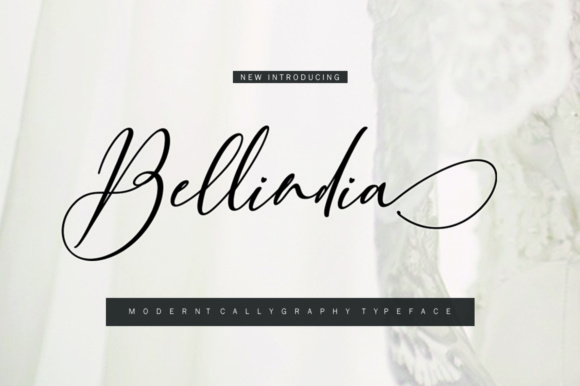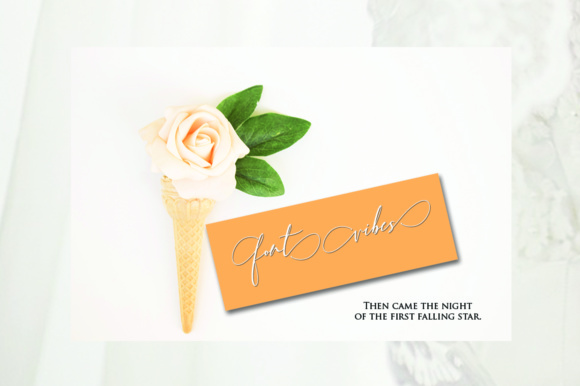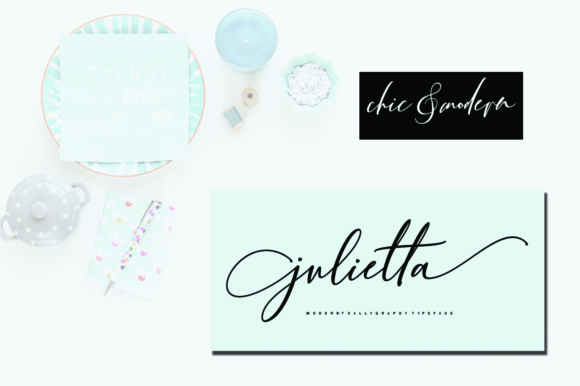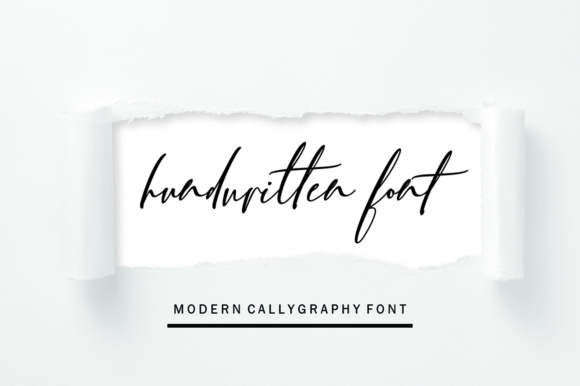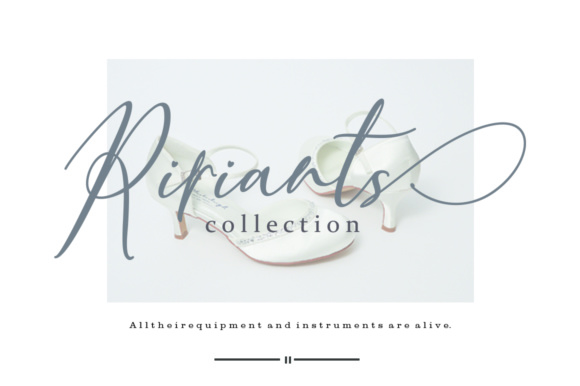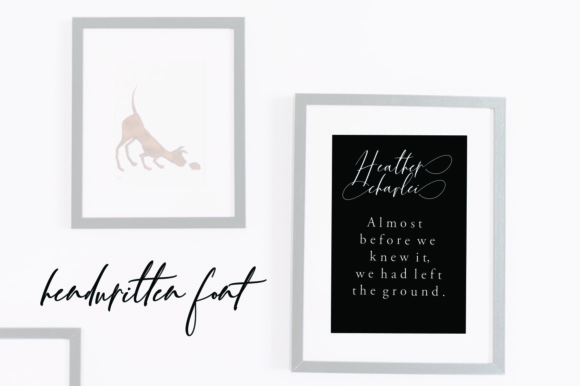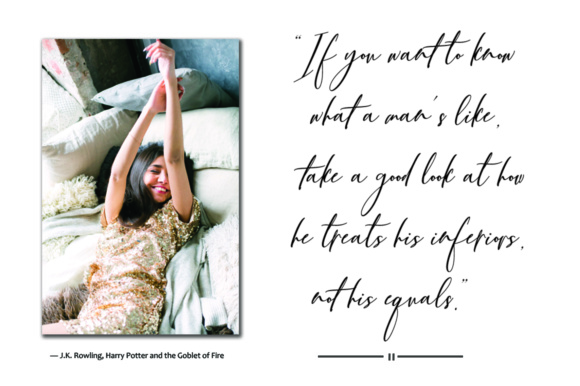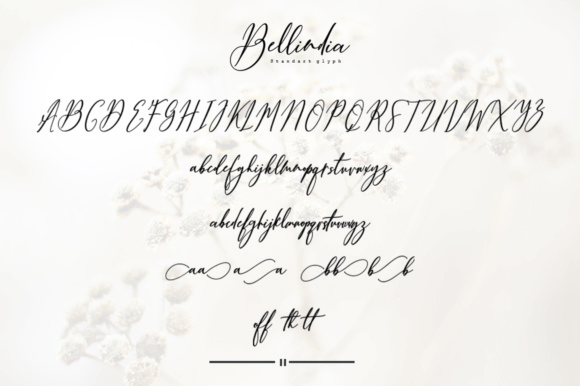
Bellindia Font
About Bellindia Font
Bellindia Script is a modern calligraphy font. With it’s beautiful handwriting style, Bellindia is perfect for branding, wedding invites, magazines, mugs, business cards, quotes, posters, and much more! Bellindia gives you lots of beautiful glyphs so you can variate and customize your design just the way you like!